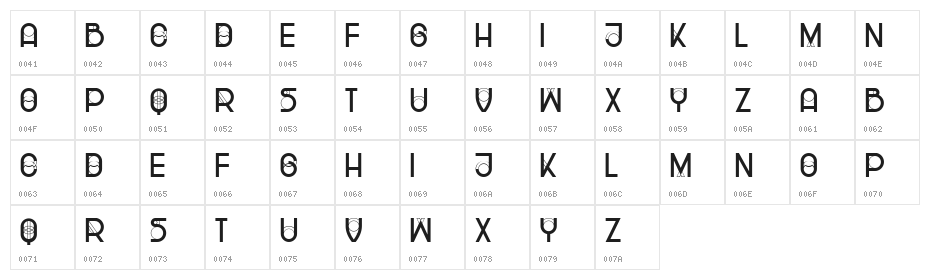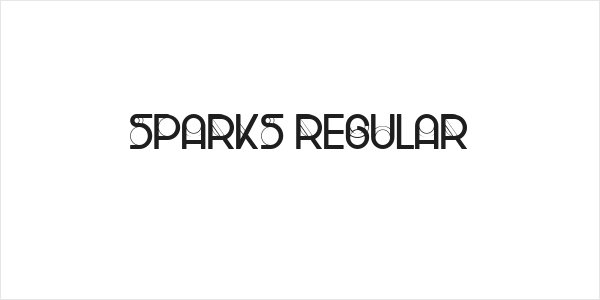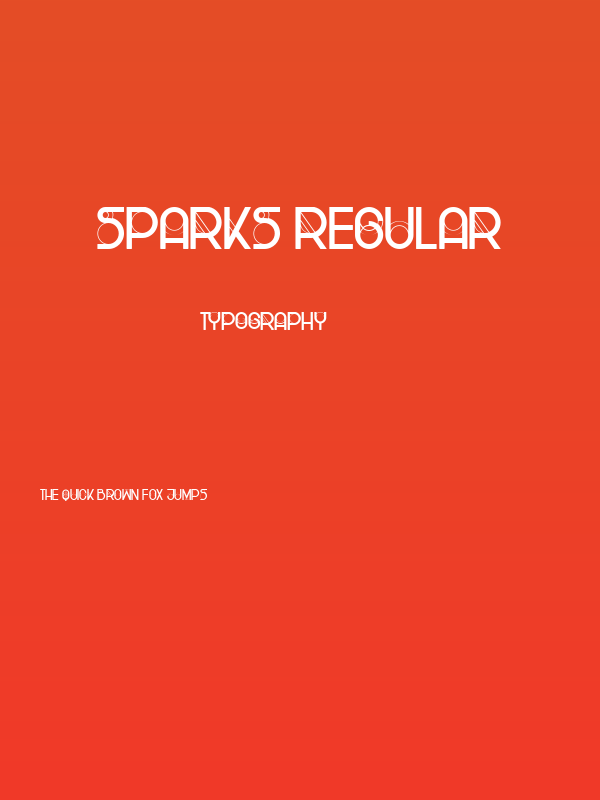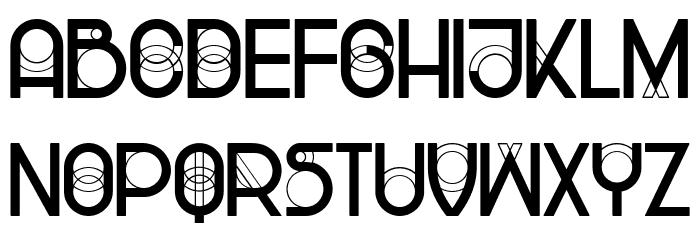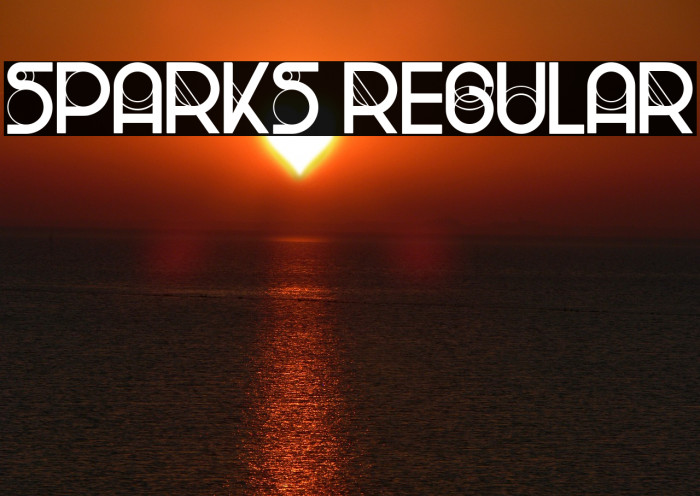
Sparks Regular Font
Sparks Regular Description
This font features a unique and modern design with geometric elements integrated into each character. The uppercase letters are bold and striking, with circular and angular shapes that create a sense of movement and energy. The design incorporates overlapping lines and circles, giving it a futuristic and dynamic appearance. The font maintains a consistent weight throughout, providing a balanced and cohesive look. Its distinct style makes it suitable for creative and contemporary projects, where a bold statement is desired.
| Use Case | Logos, Posters, Headlines |
| Proposed Projects | Ideal for branding, logos, posters, and any project requiring a futuristic and bold visual impact. |